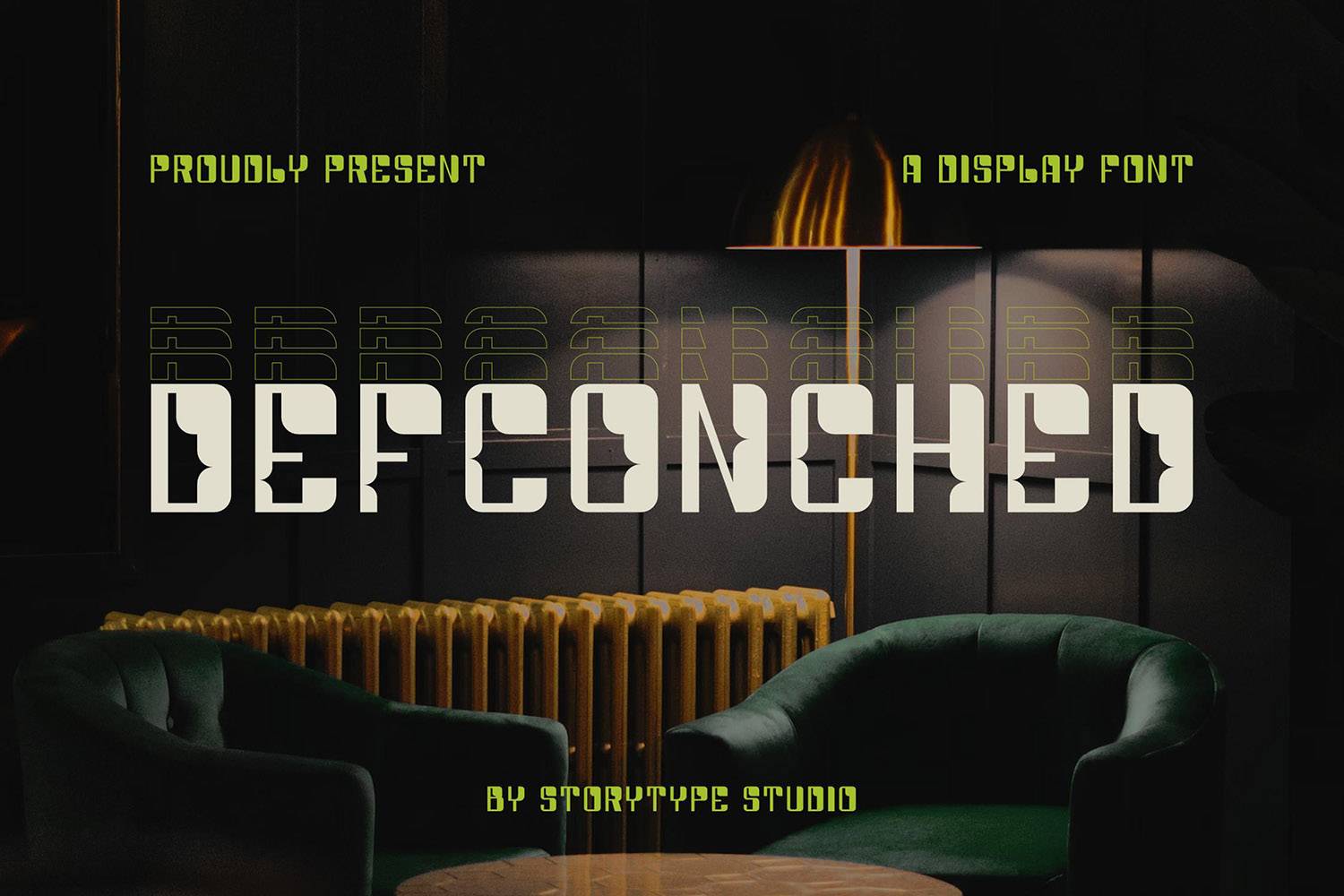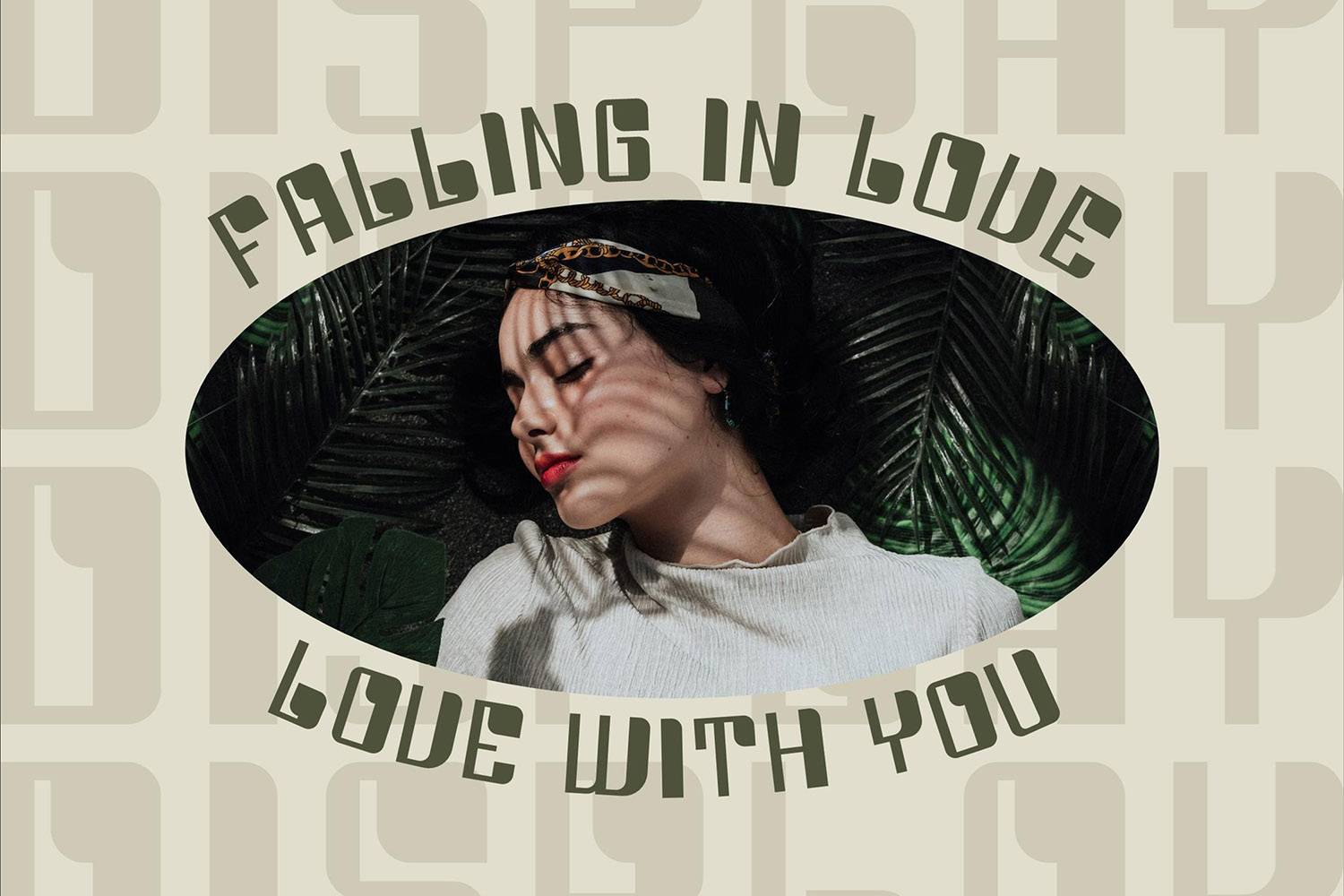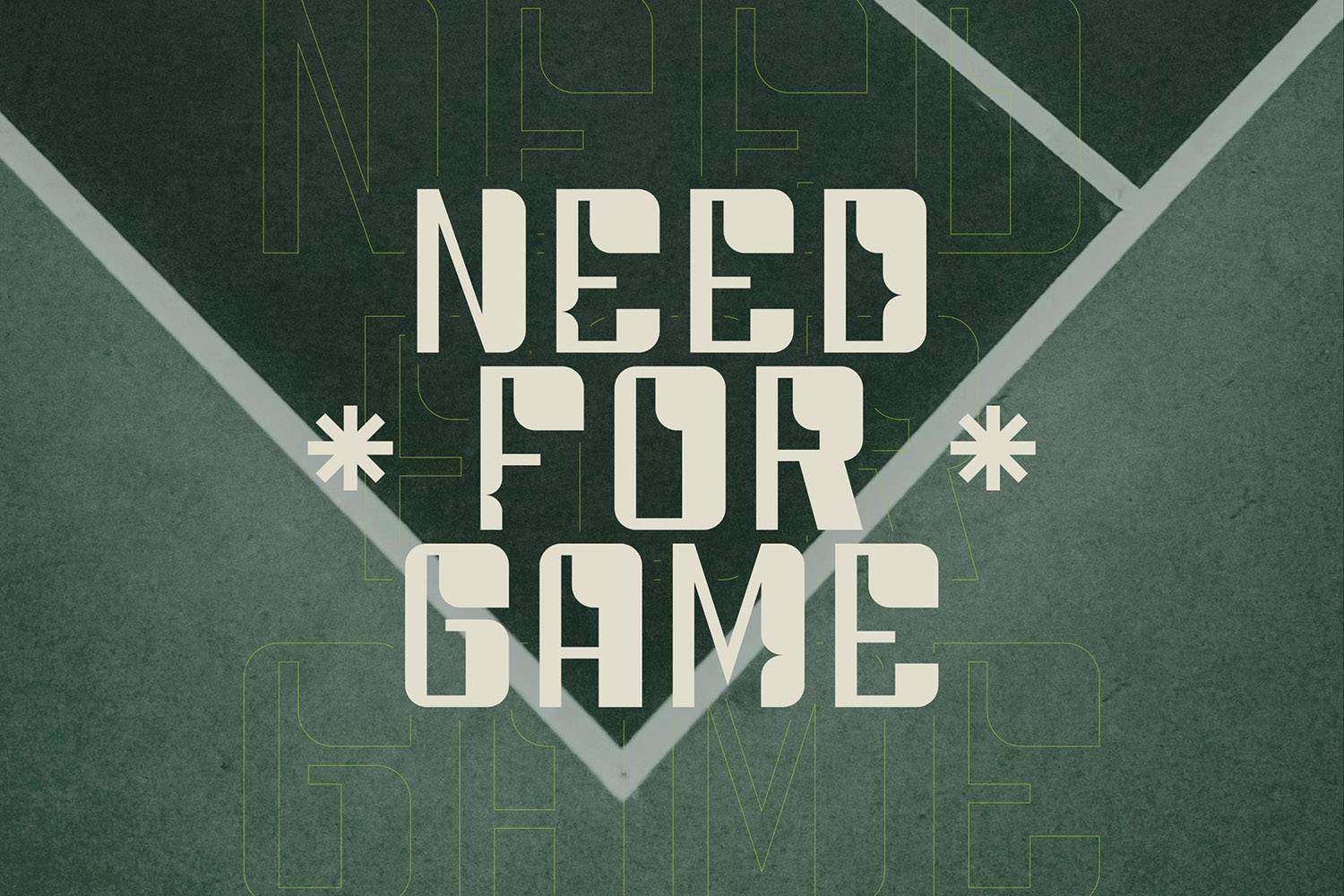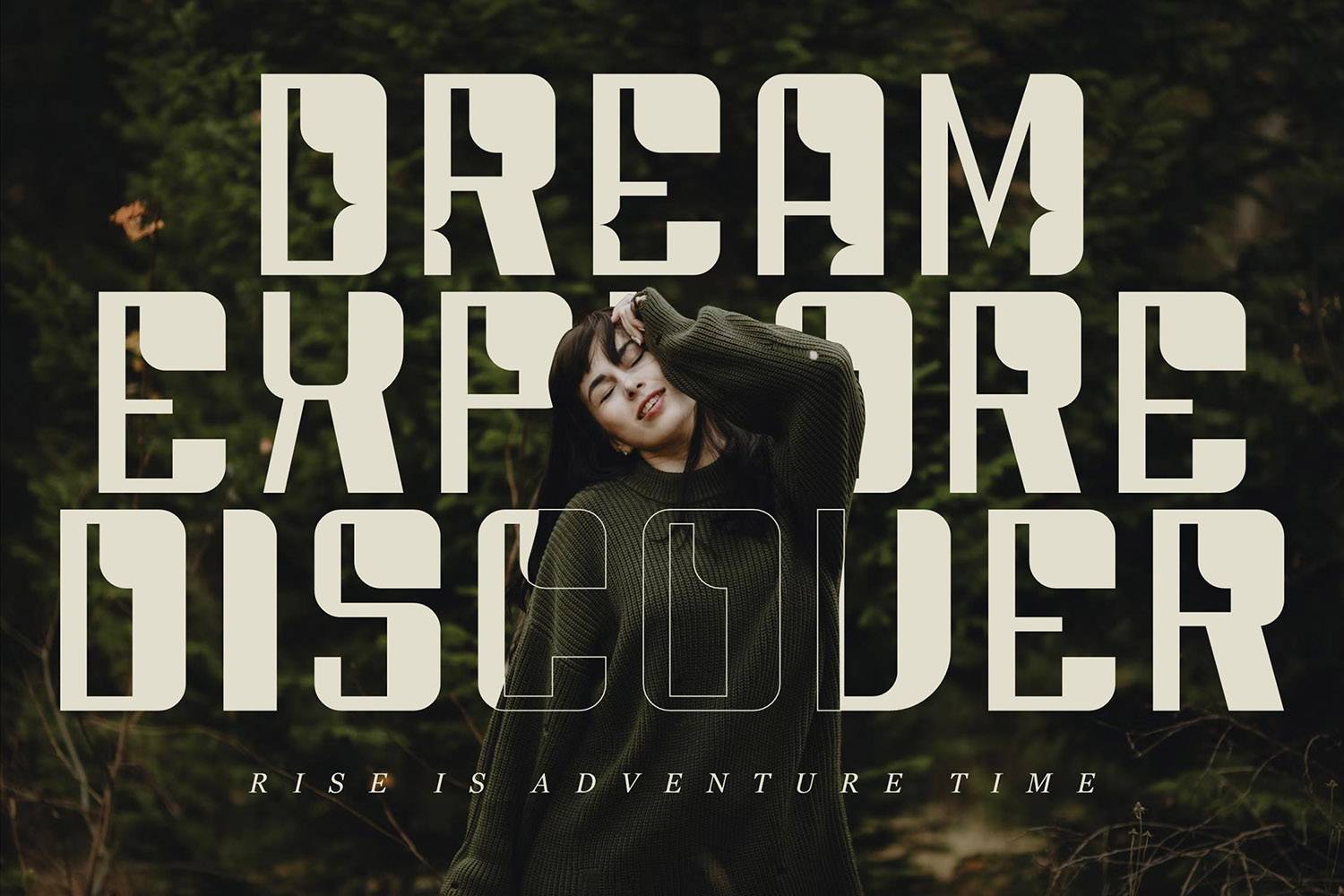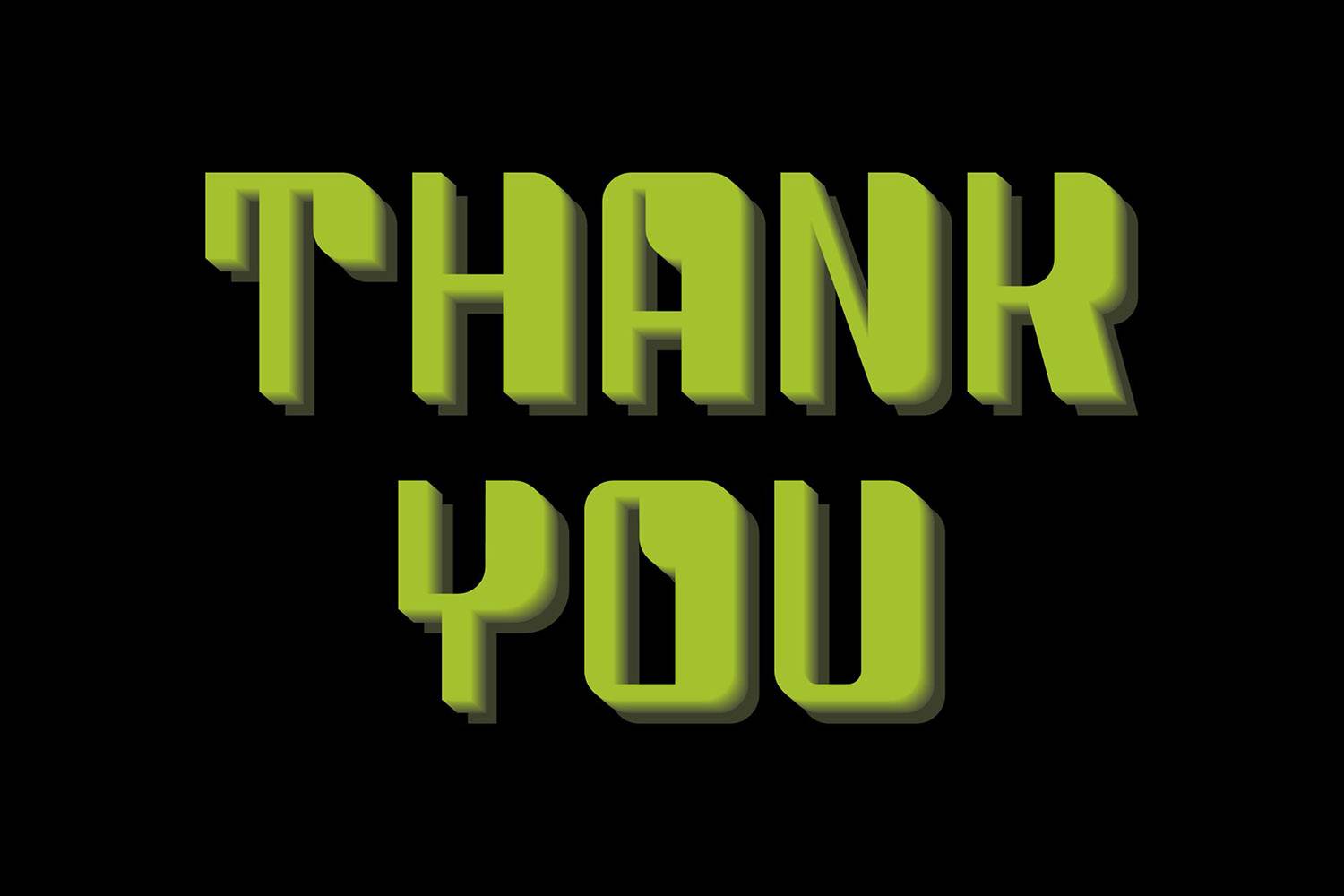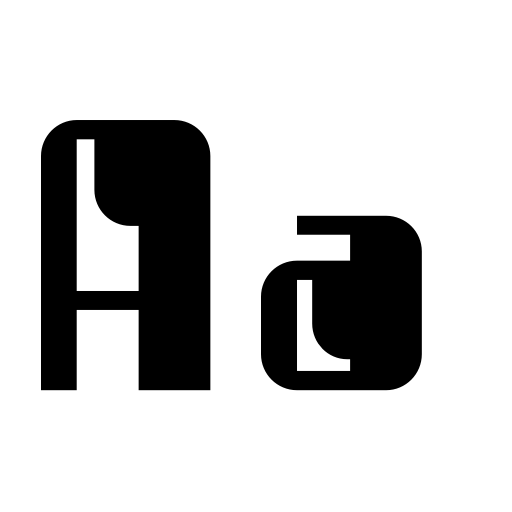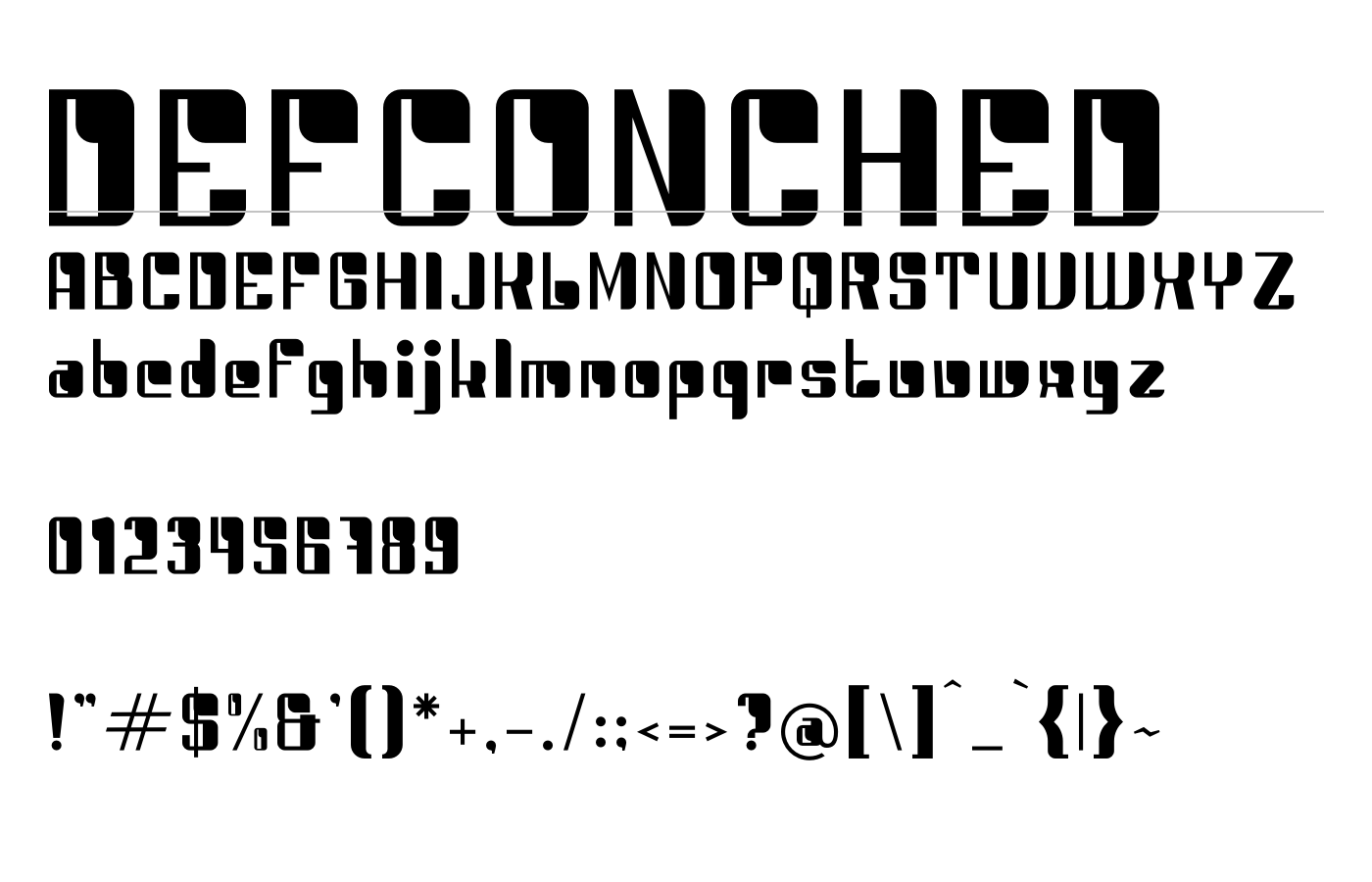
Defconched is a bold, condensed sans serif font with a unique geometric and industrial vibe, featuring high contrast between thick and thin strokes and distinctive cut-out details in many characters. Its strong, modern look with uppercase and lowercase support, along with lining numbers and sharp edges, makes it ideal for attention-grabbing headlines, posters, and branding that aims to convey a futuristic or tech-inspired mood. This font works especially well where a striking, confident personality is needed to stand out.
Defconched Font
About Defconched Font